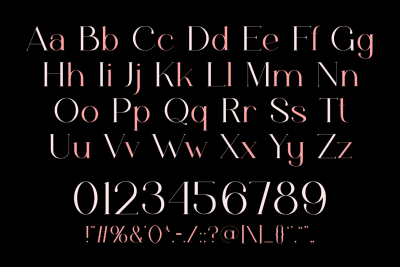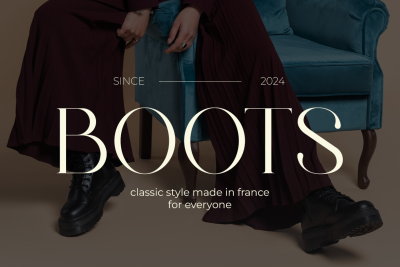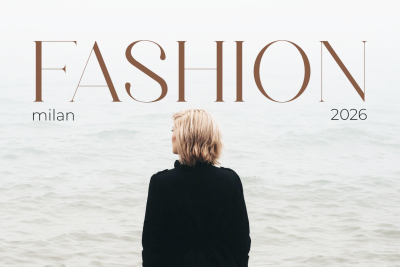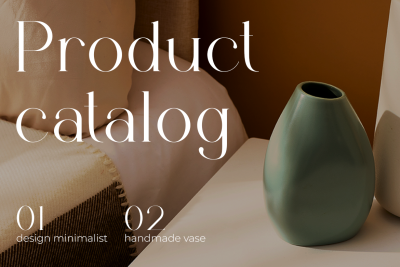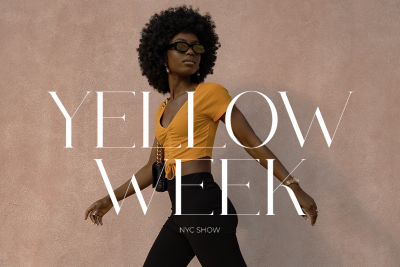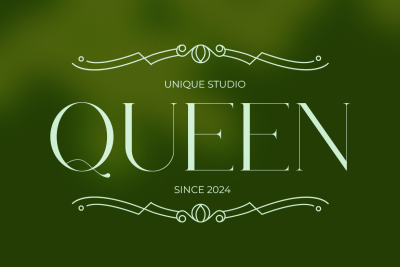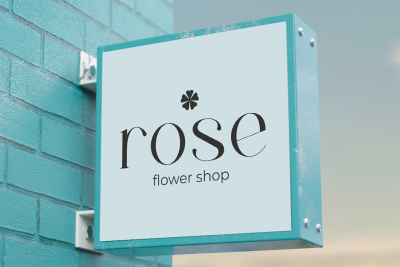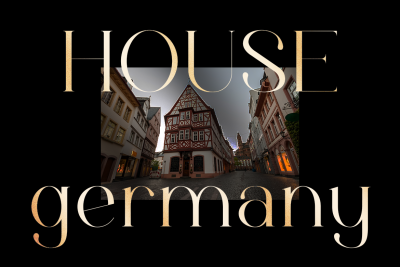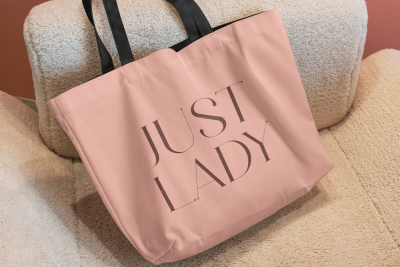
Instagram Font KHAMILA is a modern, high-contrast serif typeface that radiates elegance and sophistication. Its sharp lines and meticulously crafted letterforms make a bold statement. Additionally, the font blends contemporary style with timeless serif elements, offering versatility and uniqueness for various designs.
KHAMILAโs thin, graceful curves and refined proportions add a luxurious touch. Moreover, the dramatic contrast between thick and thin strokes creates an eye-catching dynamic. This makes it perfect for headlines, logos, and social media designs. Furthermore, the fontโs clean structure ensures readability while maintaining a sense of exclusivity.
Whether in minimalist layouts or vibrant visuals, KHAMILA adapts seamlessly. It enhances aesthetic appeal, making it ideal for expressing sophistication and modernity. For anyone seeking a font that exudes elegance, KHAMILA is an excellent choice.
Instagram Font KHAMILA is ideal for brands and individuals aiming for a high-end, stylish look. Its luxurious design suits fashion labels, beauty brands, and luxury goods businesses. Therefore, it is perfect for use in logos, packaging, or marketing materials to create a strong brand identity.
Social media influencers and digital creators can elevate their posts with KHAMILA. Its bold design ensures captions and headlines stand out in feeds. Consequently, this makes it especially effective for platforms like Instagram and Pinterest, typographic masterpiece that brings a modern and elegant touch
Wedding planners and stationery designers will love KHAMILA for its upscale touch. It works perfectly for invitations, menus, and other printed materials. As a result, its romantic yet modern style is great for weddings and celebratory events.
Editorial and web designers can leverage KHAMILAโs versatility. For instance, it shines in magazine spreads, eBooks, and digital presentations. The font adds refinement and professionalism to every project.
Whether youโre building a brand, crafting luxurious visuals, or creating timeless designs, Instagram Font KHAMILA delivers style and sophistication.